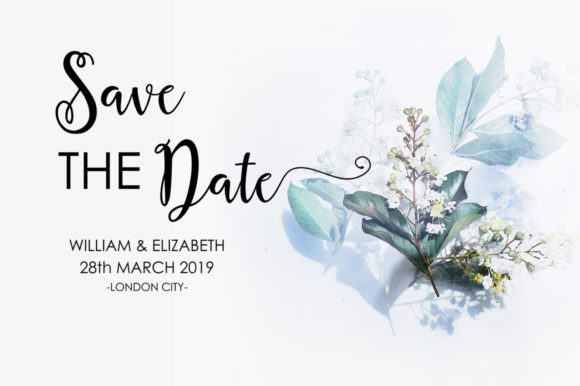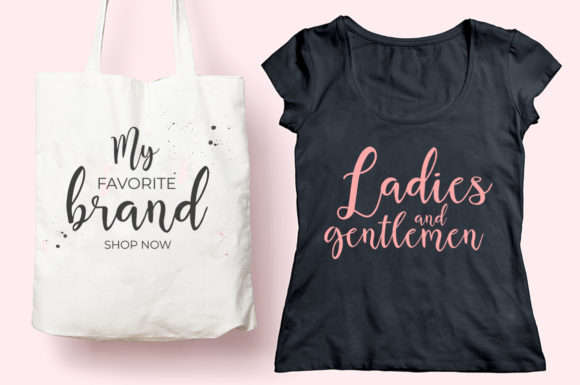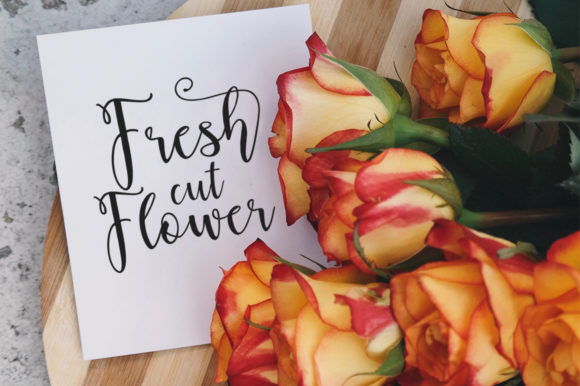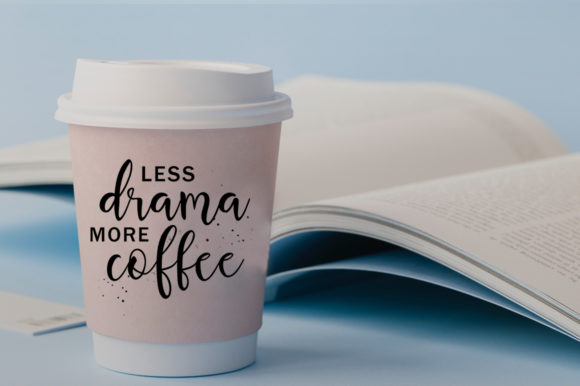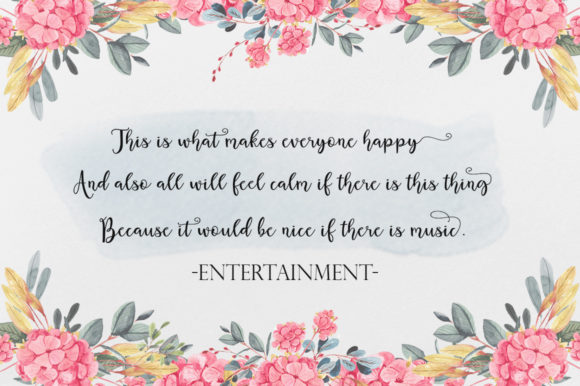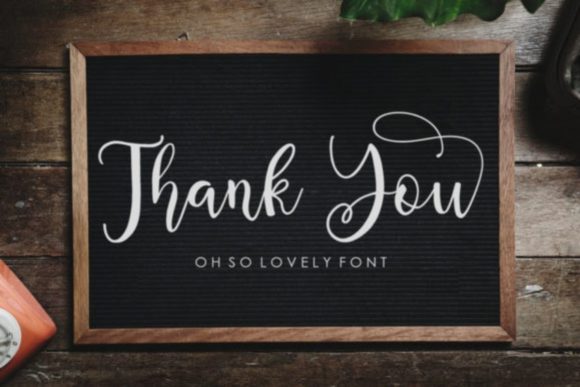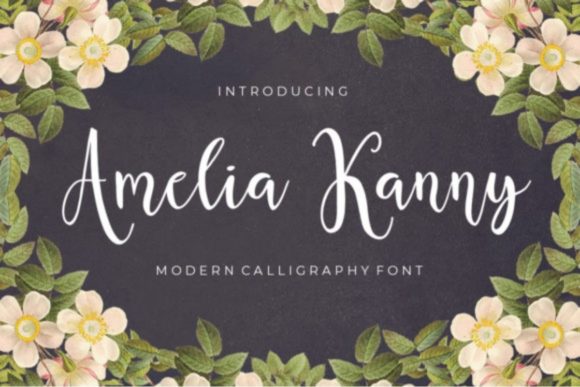
Discover the Enchanting Amelia Kanny Font: A Romantic and Magical Handwritten Delight
Are you a designer or crafter on the hunt for a font that embodies romance and magic? Look no further than the captivating Amelia Kanny Font. This stunning handwritten font is sure to sweep you off your feet with its distinct and well-rounded letters, making it a true masterpiece. In this article, we’ll dive into the enchanting world of Amelia Kanny, exploring its versatility, uses, and the creative possibilities it offers.
The Charm of Amelia Kanny Font
Amelia Kanny Font is a romantic and magical handwritten font that exudes elegance and sophistication. Its unique and rounded letters are carefully crafted to create a sense of whimsy and wonder, making it perfect for designs that require a touch of personality. Whether you’re working on a wedding invitation, a branding project, or a craft tutorial, Amelia Kanny is sure to add a dash of magic to your creations.
What Makes Amelia Kanny Font So Special?
So, what sets Amelia Kanny apart from other fonts? Here are a few reasons why this font stands out:
- Distinct and Well-Rounded Letters: Amelia Kanny’s letters are carefully crafted to be both distinct and well-rounded, creating a beautiful and harmonious visual effect.
- Romantic and Magical: This font embodies a sense of romance and magic, making it perfect for designs that require a touch of whimsy and elegance.
- Incredibly Versatile: Amelia Kanny is a versatile font that can be used for a wide range of design projects, from wedding invitations to branding and crafting.
Using Amelia Kanny Font in Your Designs
Amelia Kanny Font is an incredibly versatile font that can be used in a variety of design projects. Here are a few ideas to get you started:
- Wedding Invitations: Add a touch of romance and elegance to your wedding invitations with Amelia Kanny Font.
- Branding and Packaging: Use Amelia Kanny to create a unique and memorable brand identity that stands out from the crowd.
- Crafting and DIY Projects: Add a personal touch to your crafting and DIY projects with Amelia Kanny Font, perfect for tutorials, labels, and more.
- Social Media Graphics: Use Amelia Kanny to create eye-catching social media graphics that showcase your personality and style.
Tips and Tricks for Working with Amelia Kanny Font
Here are a few tips and tricks to help you get the most out of Amelia Kanny Font:
- Experiment with Font Sizes: Amelia Kanny Font looks great in a variety of font sizes, so don’t be afraid to experiment and find the perfect size for your design.
- Pair with Other Fonts: Try pairing Amelia Kanny with other fonts to create a unique and visually appealing combination.
- Use for Headings and Titles: Amelia Kanny Font is perfect for headings and titles, adding a touch of elegance and sophistication to your designs.
| Font Name | Amelia Kanny Font |
| Author | Stellar Studio |
In conclusion, Amelia Kanny Font is a romantic and magical handwritten font that is sure to captivate designers and crafters alike. Its distinct and well-rounded letters, versatility, and enchanting charm make it a true masterpiece. Whether you’re working on a wedding invitation, branding project, or crafting tutorial, Amelia Kanny Font is the perfect choice for adding a touch of magic to your designs. So why wait? Fall in love with Amelia Kanny Font today and unlock a world of creative possibilities!